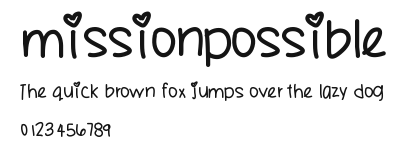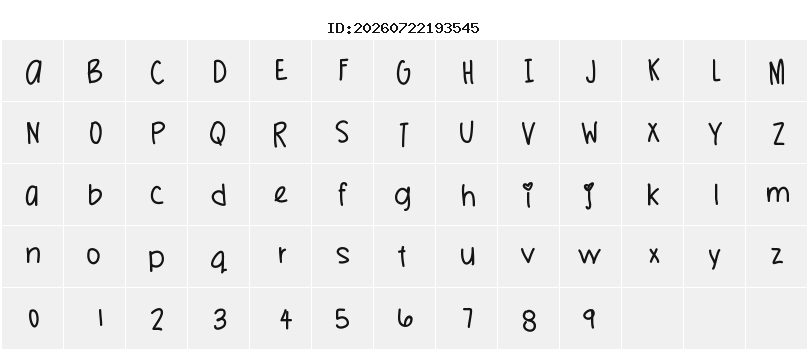
missionpossible Preview
About missionpossible.ttf
missionpossible.ttf is a modern, elegant sans-serif font designed for ultimate readability and visual harmony. Perfect for branding, headlines, web design, and print materials.